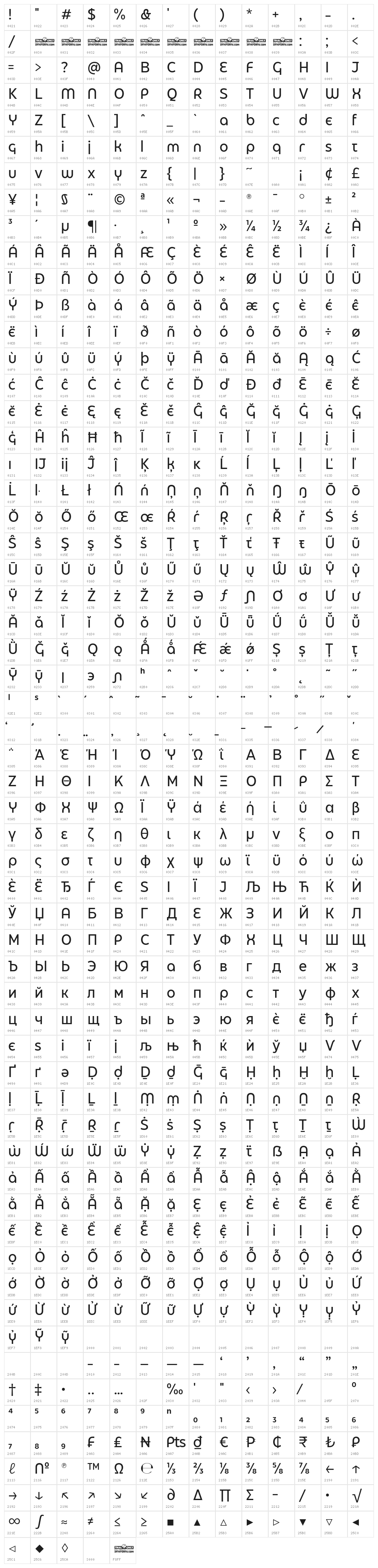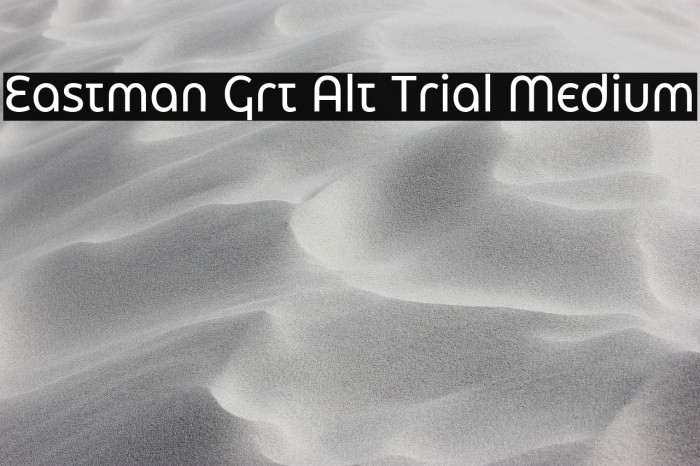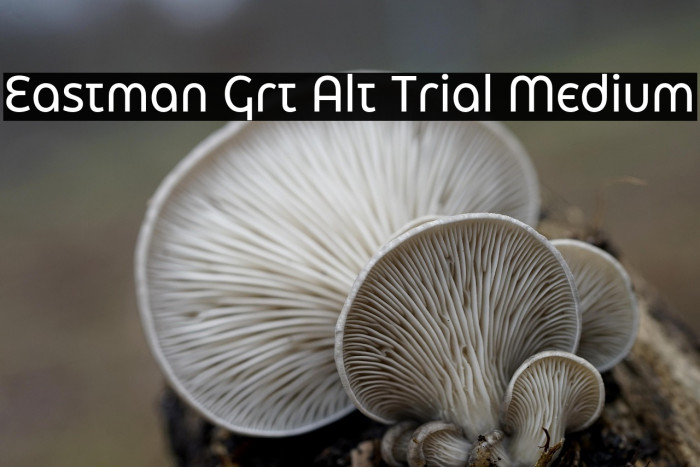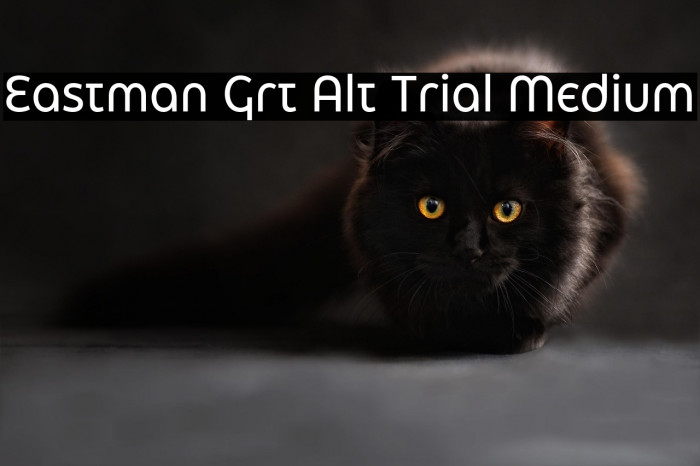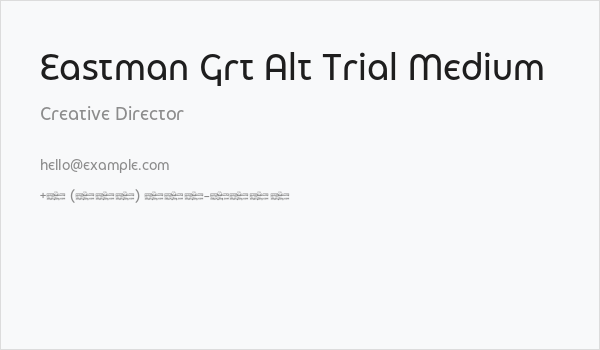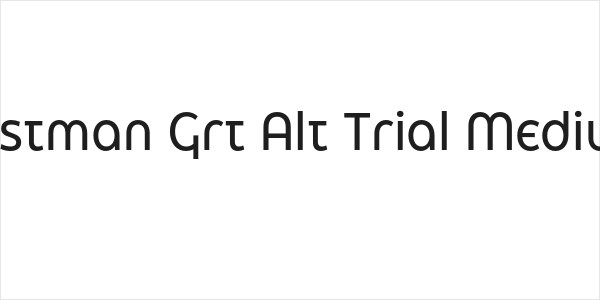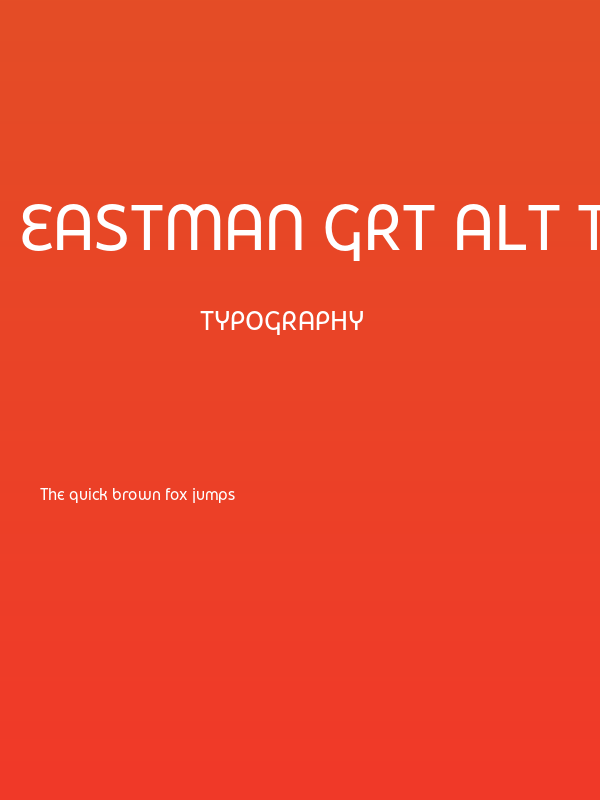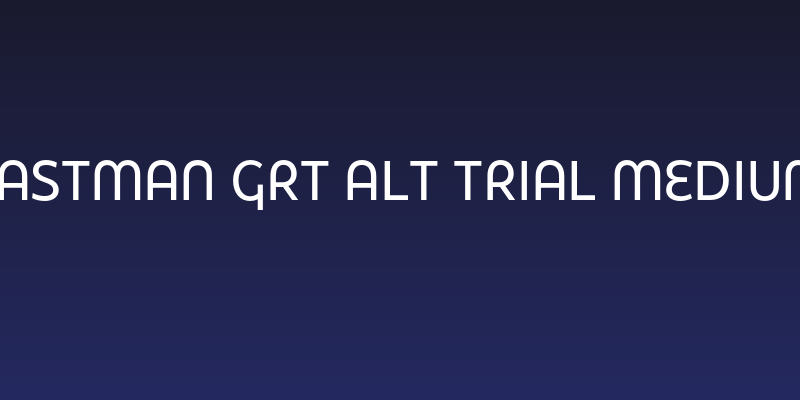
Eastman Grt Alt Trial Medium Font
Eastman Grt Alt Trial Medium Description
This font showcases a modern and clean aesthetic with a geometric sans-serif style. The characters are well-rounded and uniform, providing a sense of balance and harmony. The uppercase and lowercase letters maintain a consistent stroke width, contributing to a cohesive look. The numerals and special characters are designed to match the overall style, ensuring versatility across different uses. The font's simplicity and clarity make it suitable for a wide range of applications, from digital interfaces to print media.